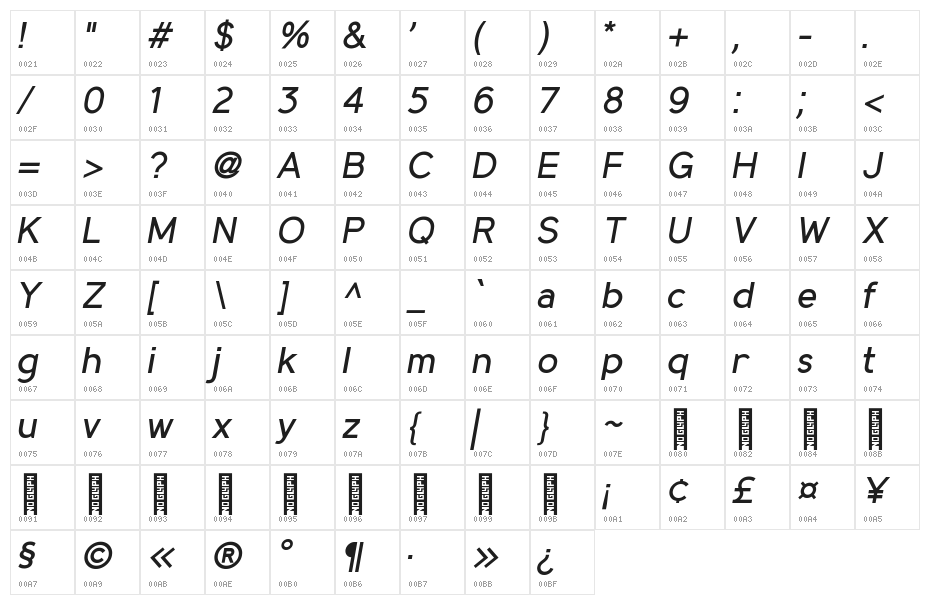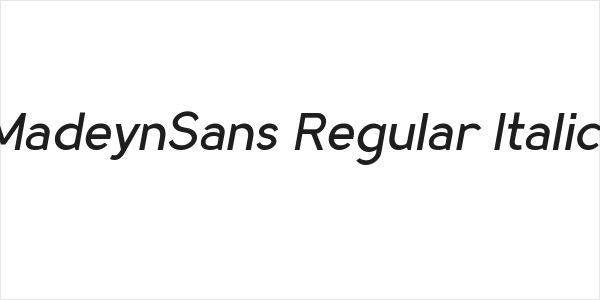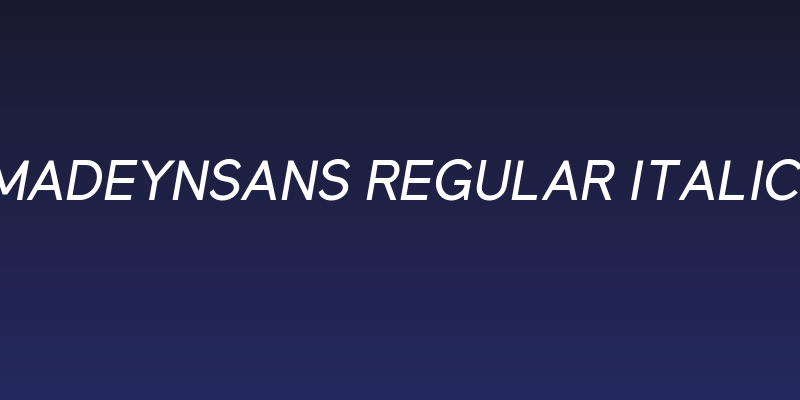
MadeynSans Regular Italic Font
MadeynSans Regular Italic Description
This font exhibits a clean and modern sans-serif style with a slight italic slant, giving it a dynamic and forward-moving appearance. The characters are well-proportioned, with smooth curves and a consistent stroke width, contributing to its readability. The uppercase letters are bold and assertive, while the lowercase letters maintain a friendly and approachable look. The numerals are clear and distinct, ensuring legibility in various contexts. Special characters are designed with precision, maintaining the overall aesthetic of the font.
| Proposed Projects | Ideal for branding, advertising, and digital media projects where a modern and professional look is desired. |